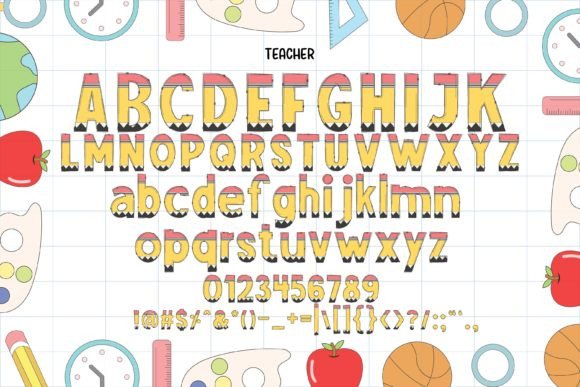
Teacher Font
Introducing ‘School,’ a tremendously bold and distinctively colorful font. Its design is remarkably unique, making it an excellent choice for a variety of creative projects. With its whimsical charm, ‘School’ is especially well-suited for children’s games and educational themes, infusing any design with a joyful and engaging atmosphere. This chunky, vibrant typeface has the power to transform your designs from simple to simply irresistible.